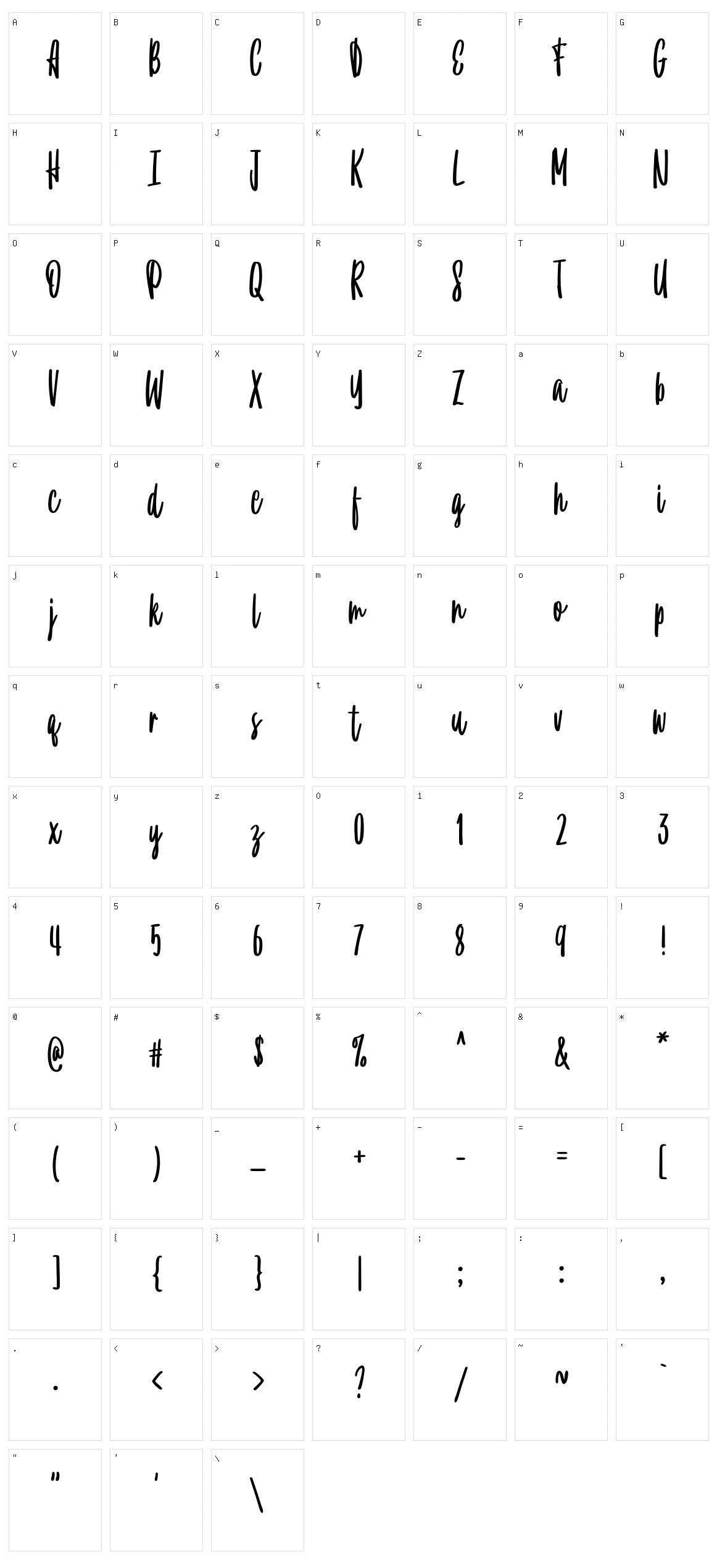
True Happiness is a condensed modern calligraphy font made from original handwriting. It feels casual and personal so it is perfect for those of you who want to make special themed typography.